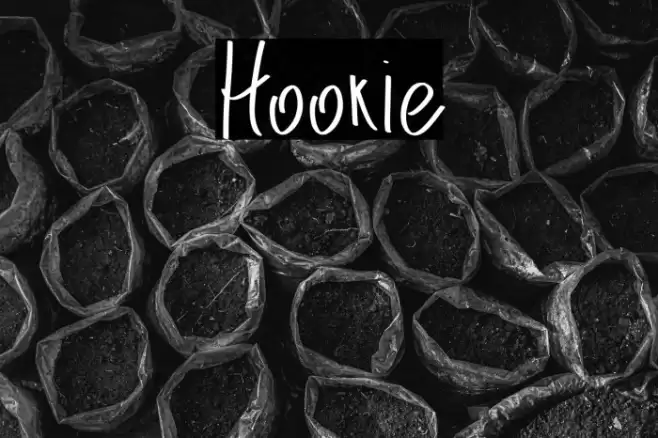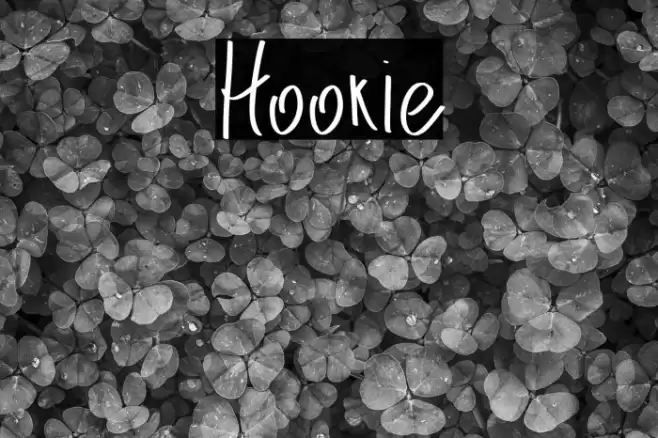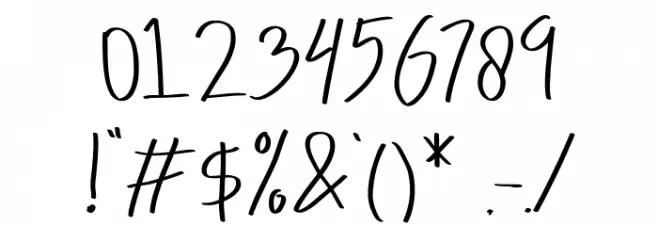
Hookie Font
Hookie Description
This font features a playful and casual handwritten style, characterized by its irregular strokes and whimsical appearance. The uppercase letters are tall and slightly narrow, with a consistent baseline that gives a sense of uniformity despite the informal style. The lowercase letters maintain a similar playful aesthetic, with some letters featuring loops and curves that add to the font's charm. Numbers and special characters are designed to match the overall handwritten feel, making them suitable for creative and informal projects. The font's unique style makes it stand out, offering a friendly and approachable vibe.
A playful, handwritten font with a casual and whimsical style from Regular fonts.
- Proposed Projects: Ideal for greeting cards, children's books, casual invitations, and playful branding.
- Overall Style: Casual, Playful
- Use Case: Headlines, Informal text, Creative projects